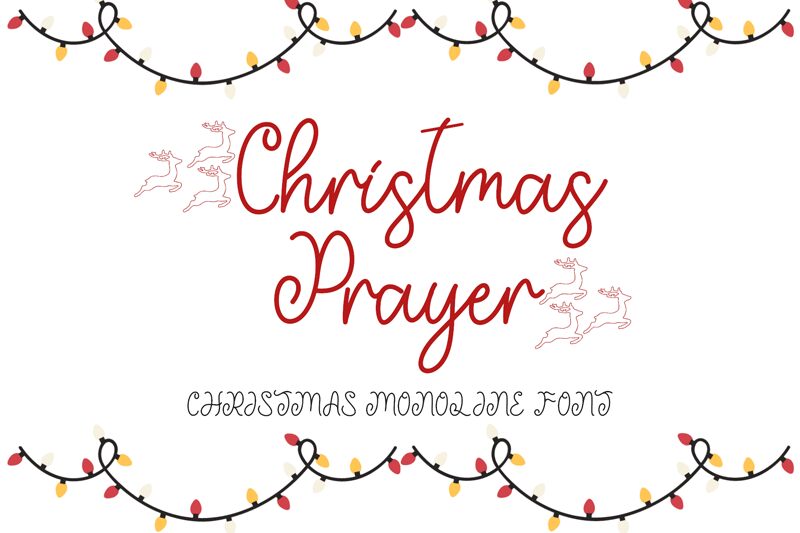
Christmas Prayer by Yoga Letter is a captivating semi-light Christmas script font that exudes warmth and festivity. Its graceful curves and elegant flourishes encapsulate the joyful spirit of the holiday season, making it a perfect choice for conveying heartfelt messages. The harmonious flow of the letterforms, paired with delicate swashes, gives this font an aesthetic appeal that can enhance any creative project with a touch of whimsy.
The Christmas Prayer font's playful yet sophisticated style lends itself beautifully to personalized greeting cards, festive branding, or holiday-themed advertising campaigns. Its charming character is versatile enough to add a bespoke feel to everything from event invitations to seasonal product packaging.
Embracing both classic calligraphy and modern design elements, Christmas Prayer stands out for its ability to marry tradition with contemporary flair. This typeface is not only visually engaging but also highly adaptable for designers looking to infuse their work with the magic of Christmas.